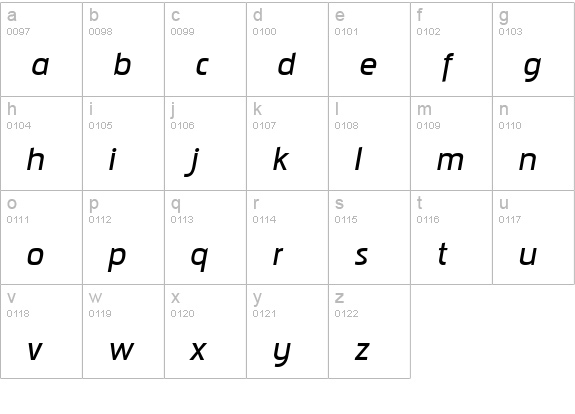
Pakenham Xp Bk Italic is a distinctive, italic variant in the Pakenham typeface family \xE2\x80\x94 well suited to design and typography projects.
Pakenham Xp Bk Italic font is a stylish and elegant typeface that exudes sophistication and modernity. Its sleek and contemporary design makes it perfect for a wide range of creative projects, from branding to editorial design. The italic style adds a touch of flair and uniqueness to any text, making it stand out and capture attention. What's even better is that Pakenham Xp Bk Italic font is available for free download at FontsMarket.com. This means you can easily access this high-quality font without any cost, making it a great choice for designers and creatives looking to enhance their work with a premium typeface. Don't miss out on the opportunity to elevate your designs with Pakenham Xp Bk Italic font - download it for free today!